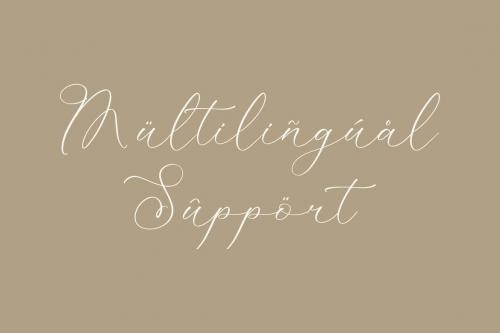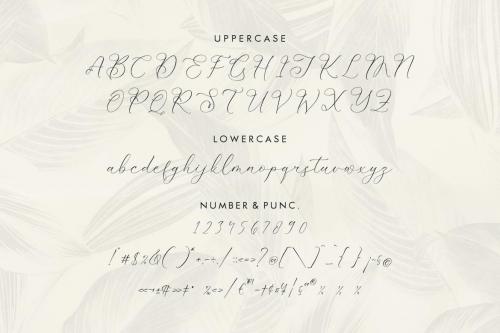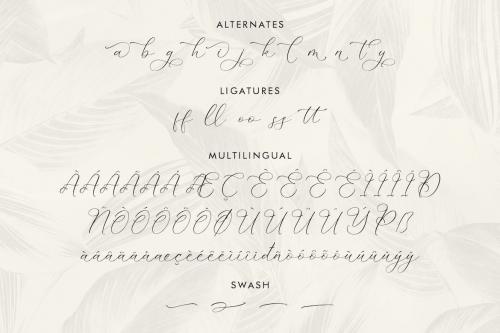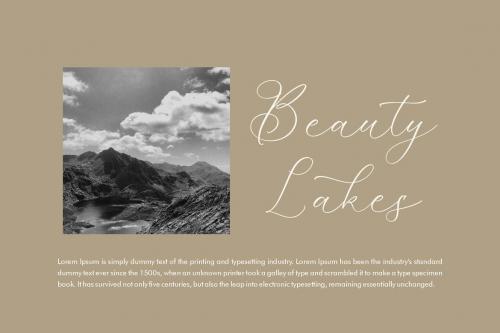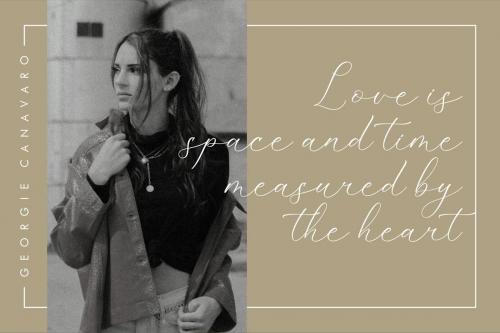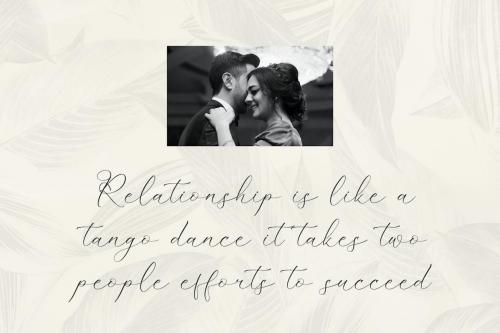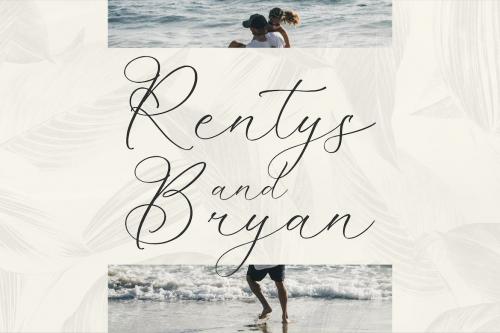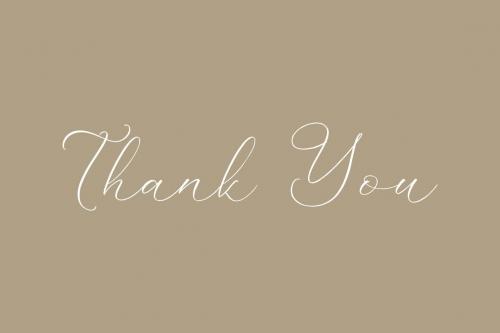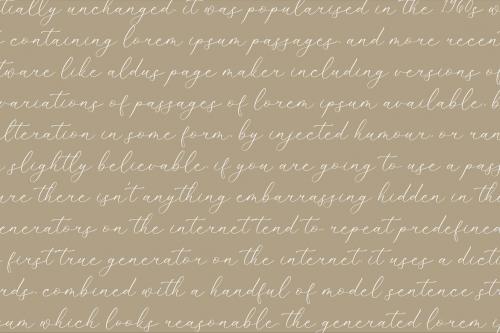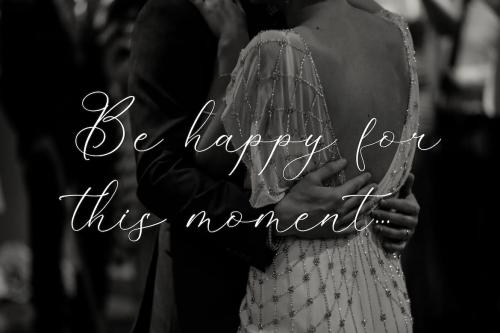
Kelarhisa Sokrate Script Font
Hi ladies & gentlemen, this is one of our fonts suitable to complement your digital and printed creative products.
This font is perfect for posters, social media posts, branding, personal projects, etc.